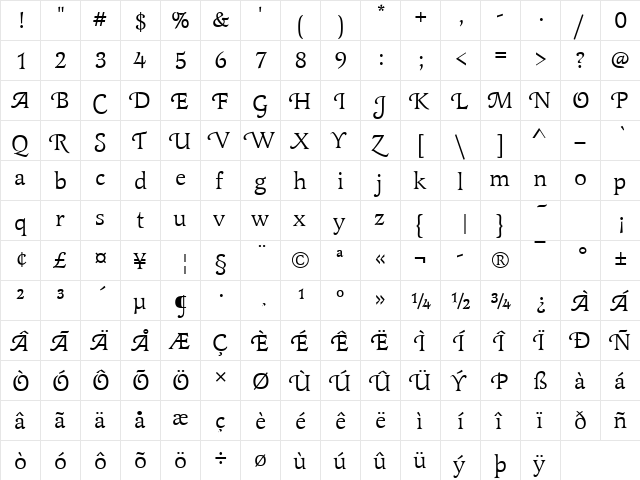
LatienneSwaT Regular
Design Context for LatienneSwaT Typeface
LatienneSwaT takes a measured approach to typography — its balanced proportions and neutral character make it a reliable workhorse for both digital and print work.